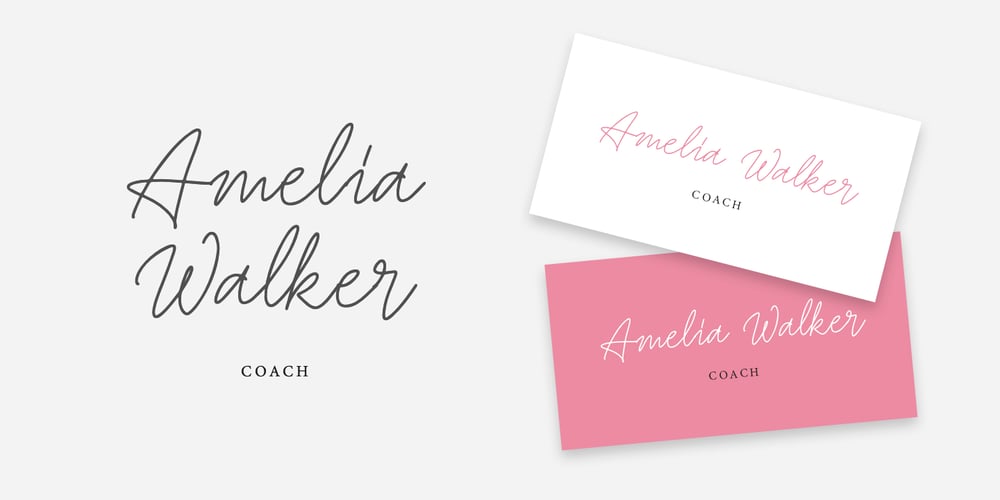
Jingle Font Family was designed by Dmitrii Chirkov and published by Supfonts. Jingle contains 1 styles and family package options. This font was inspired by the game with different signature styles! The result is a light and nice, mono linear font that looks completely handdrawn. Jingle will look beautiful on Christmas and holiday invitations, wedding invites and stationery, logos, and more. I love using it for emphasis words and pairing it with sans serifs Includes: – Ligatures – Uppercase and lowercase – Numbers and punctuation – Foreign language support Check out my blog: – www.instagram.com/dmitriychirkov – pinterest.com/dmitriychirkov7